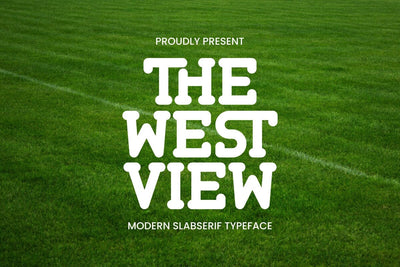
The Westview - Slab Serif Font
Hi, Introducing The Westview - Modern Slab Serif
A stunning slab serif font, with a cool modern style for a variety of creative projects such as logos, t-shirts, jerseys, stickers, labels, jersey numbers, sports businesses, magazines, and many other creative ideas.